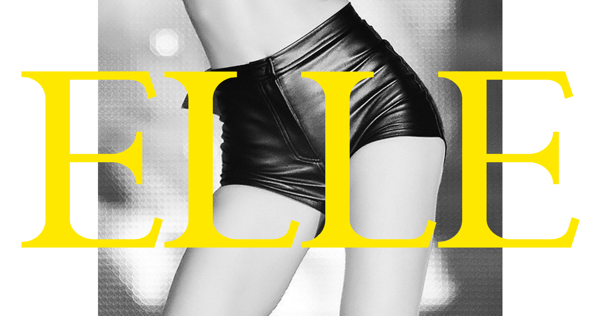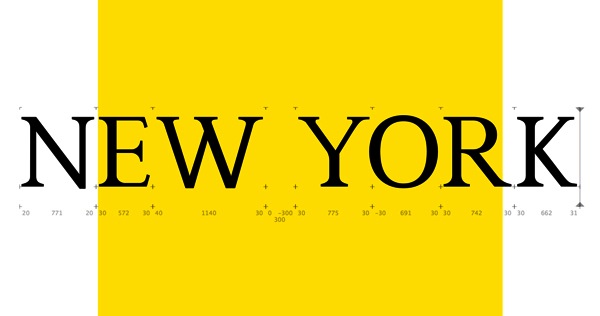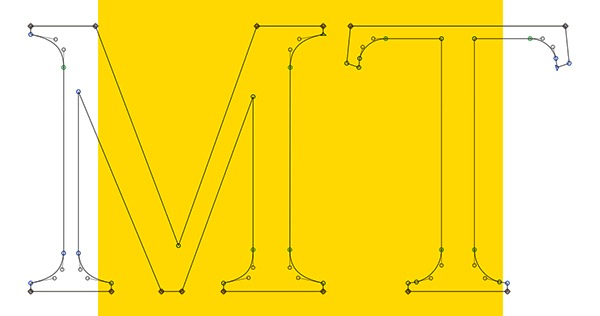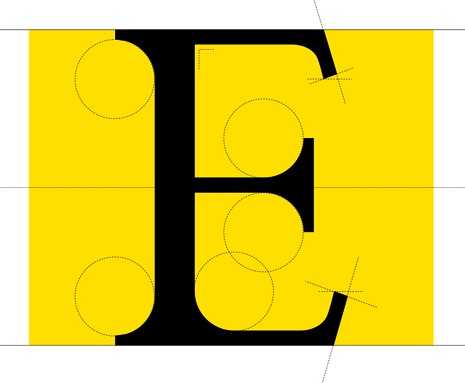
Mick Theisen
During his studies in Mainz, Germany, Mick Theisen created the Liberty typeface (2014)---its glyphs are constructed using compass and ruler in the romain du roi style. Behance link. |